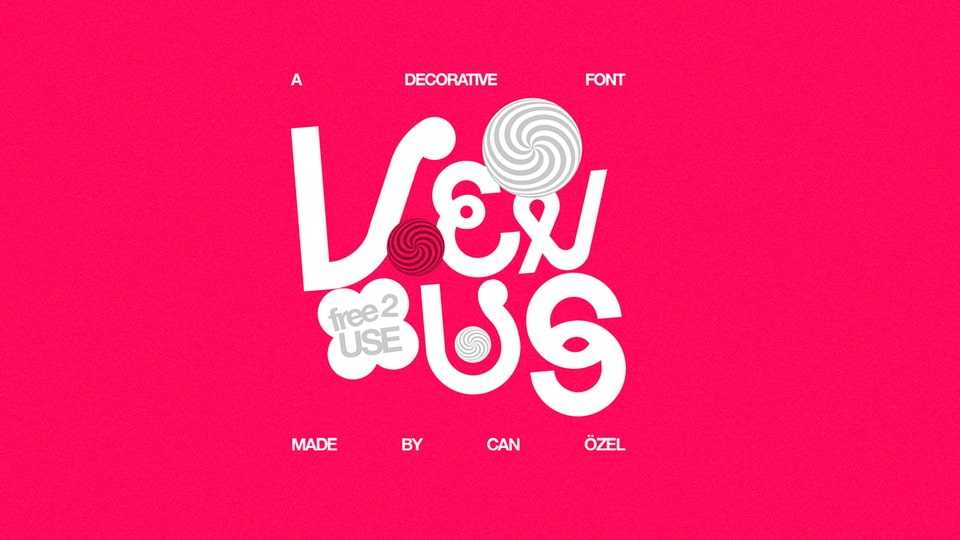
Download Venus font, a lively and experimental typeface inspired by the carefree essence of pool sliders and playgrounds. Venus font exudes a playful charm that instantly grabs attention.
Designer: Can Özel